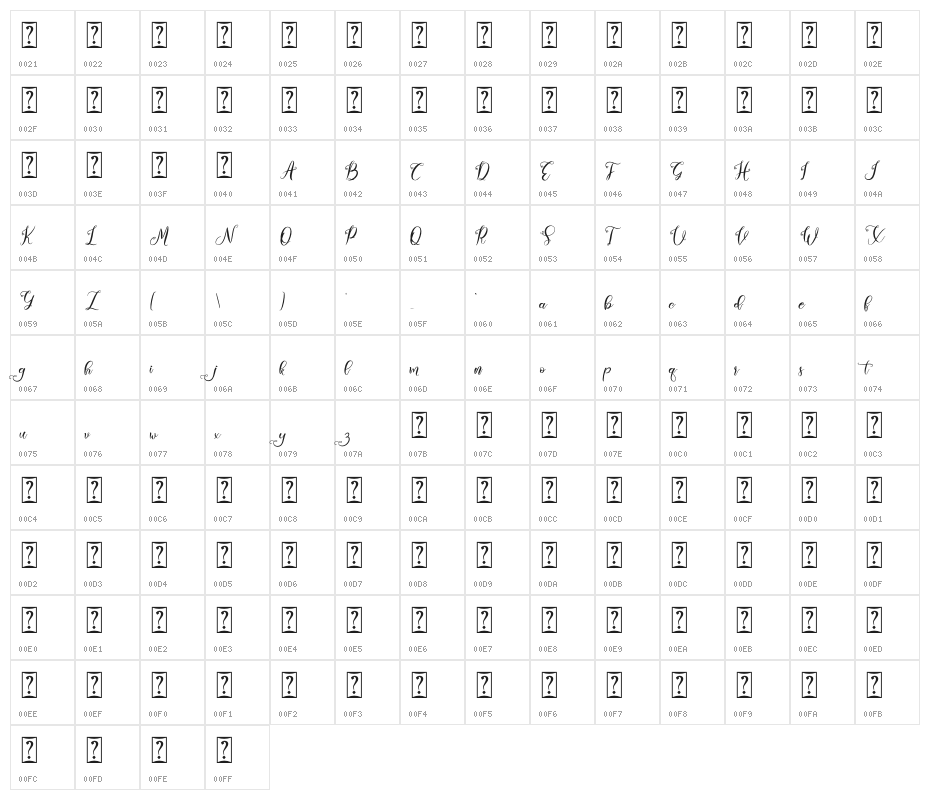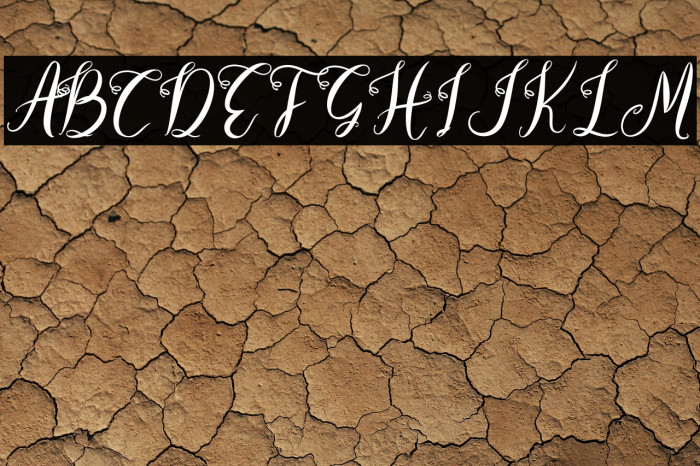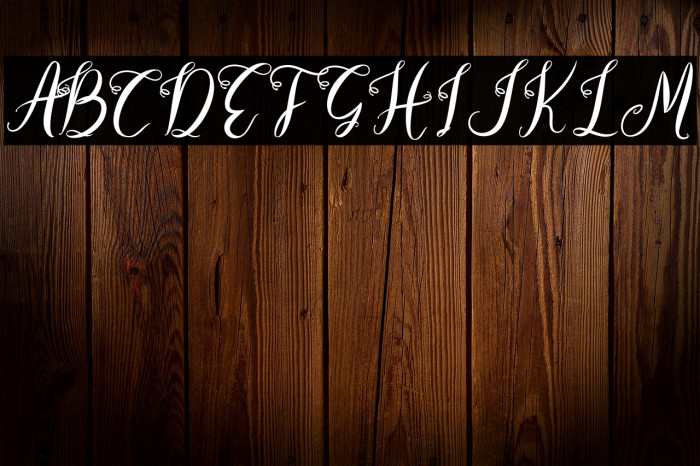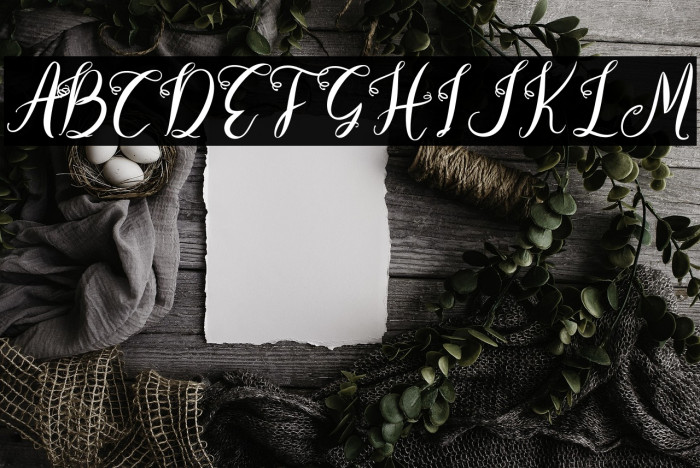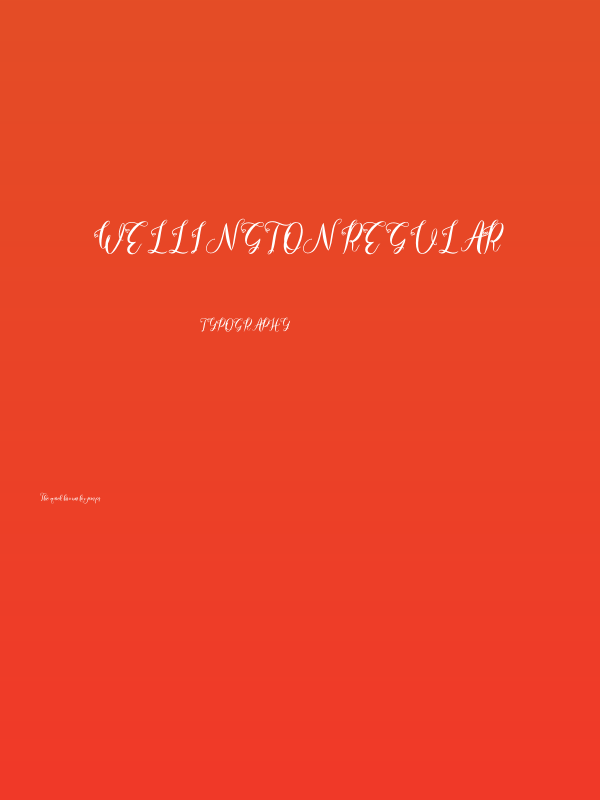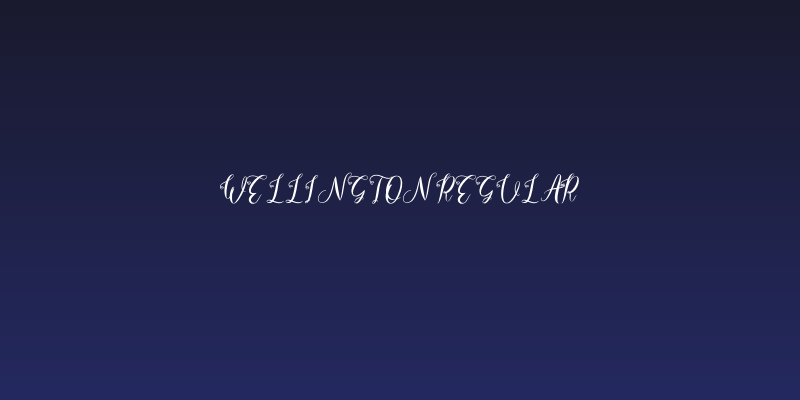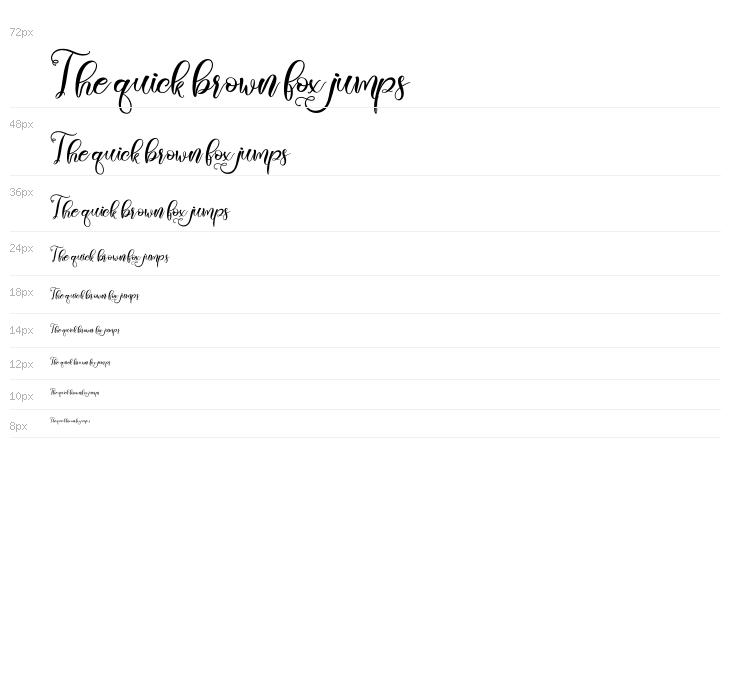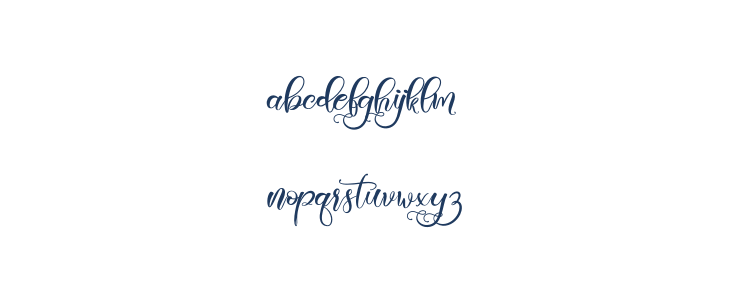
Wellington Regular Font
Wellington Regular Description
This elegant script font features flowing, interconnected letters with ornate swashes and flourishes. The uppercase characters are particularly decorative, with loops and curls that add a sense of sophistication and grace. The lowercase letters maintain a consistent style, offering a harmonious blend of curves and lines. The font's overall appearance is both artistic and refined, making it suitable for formal and creative applications. The characters are well-spaced, ensuring readability while maintaining their decorative appeal.